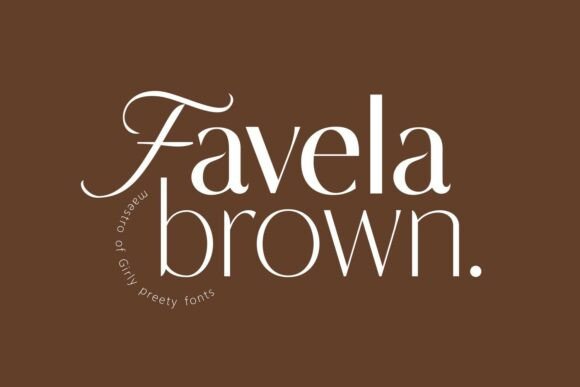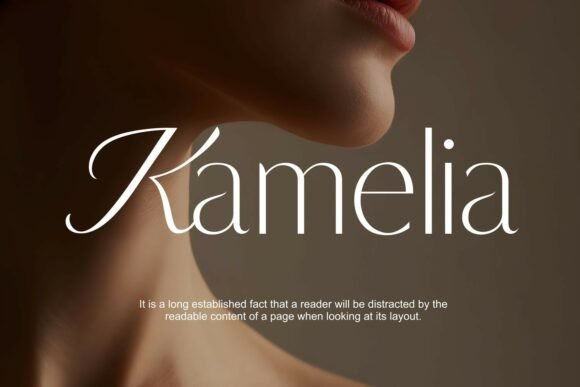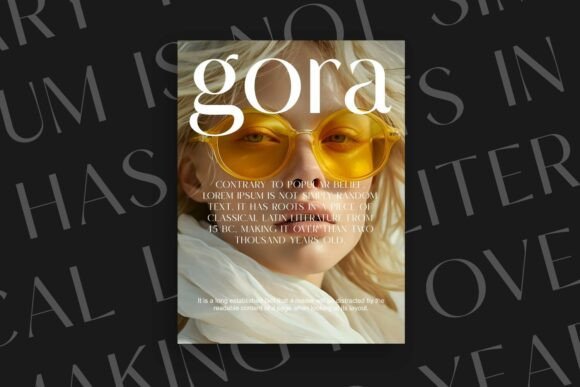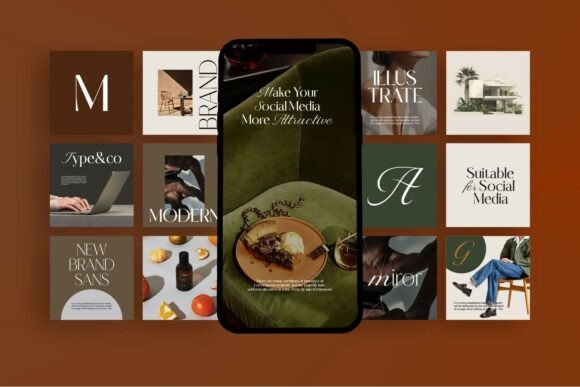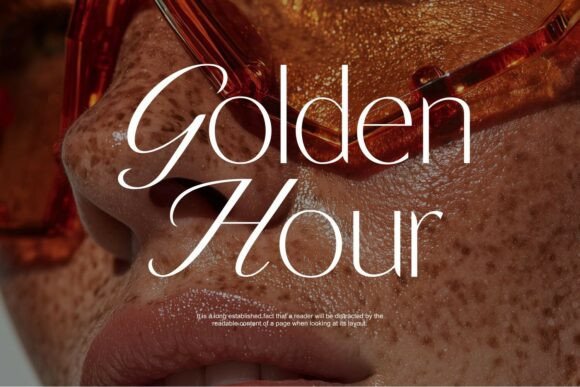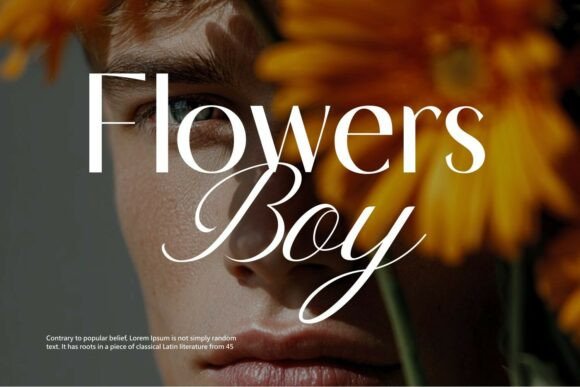
Discovering the Elegance of Macline Berilyn Font
As designers, we’ve all been there – staring at a blank page, trying to bring a creative vision to life. But what if that vision demanded sophistication, elegance, and a hint of luxury? For those moments, Macline Berilyn Font is the perfect companion. This stunning luxury serif and sans-serif pairing is designed to elevate your branding, editorial, and packaging designs to new heights. With its refined curves and clean lines, Macline Berilyn Font is the epitome of high-end design, perfect for fashion brands, beauty packaging, and minimalist logo design.
Whether you’re working on a premium branding project, a high-end logo design, or a fashion editorial, Macline Berilyn Font is the ultimate design resource. Its precise geometry, smooth terminals, and consistent rhythm make it a versatile and reliable choice for designers who crave visual harmony and readability. And the best part? You can download Macline Berilyn Font for free, making it an accessible high-quality design asset for any creative project.
Key Features of Macline Berilyn Font
- High-quality design resource ideal for creative projects, including graphics, logos, and branding materials.
- Includes a range of glyphs and characters, making it suitable for use in multilingual creative projects.
- Designed with a unique aesthetic, the Macline Berilyn Font is perfect for adding a touch of sophistication to your design.
Honest Review: Macline Berilyn Font
As a designer, I’m always on the lookout for high-quality design resources that can elevate my creative projects. Recently, I had the chance to try out the Macline Berilyn Font, and I’m excited to share my honest review with you.
Here are the things that I love about the Macline Berilyn Font:
- ✨ High-quality design: The font is beautifully crafted, with crisp lines and a smooth texture that makes it perfect for both digital and print projects.
- ✨ Versatile: The font comes in a range of weights and styles, making it easy to find the perfect fit for your design needs.
Overall, I’m impressed with the Macline Berilyn Font. Its high-quality design and versatile nature make it a valuable resource for designers working on creative projects. While there are some limitations to consider, I think the benefits far outweigh the drawbacks. If you’re looking for a free font that can elevate your designs, the Macline Berilyn Font is definitely worth checking out.
Tips for Getting the Most Out of Macline Berilyn Font
Experiment with different font sizes and colors to create a unique look for your design project. Use the transparent background to combine the font with other design elements. This font is also a great resource for designers looking for a free, high-quality font for their creative projects.
Common Use Cases for Macline Berilyn Font
The Macline Berilyn Font is suitable for a variety of design projects, including social media graphics, presentations, reports, and business documents. Its high-quality design and transparent background make it an excellent resource for designers and non-designers alike.